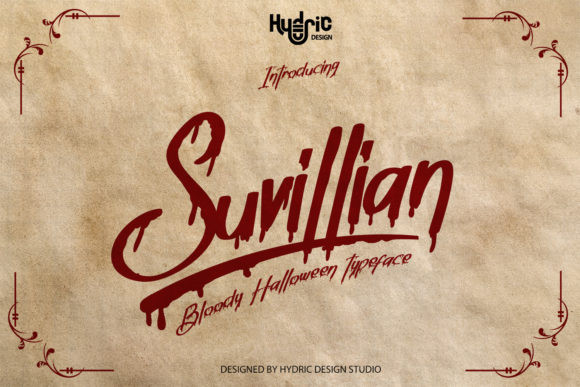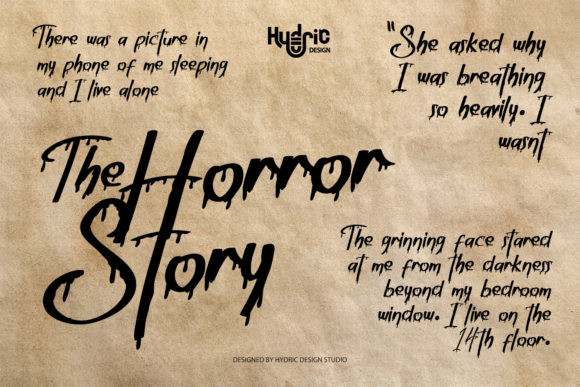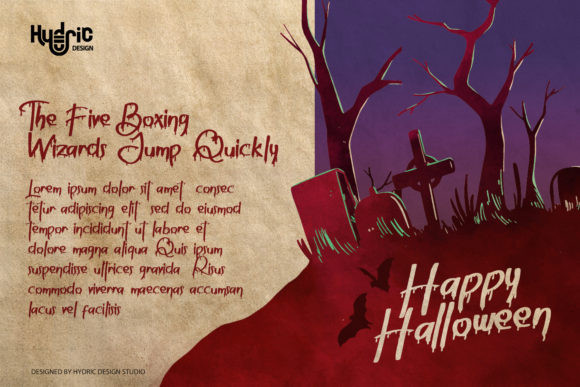
Suvillian Font
Suvillian is an incredibly unique and somewhat dramatic display font. Add this font to your creative Halloween themed ideas and notice how it makes them come alive!